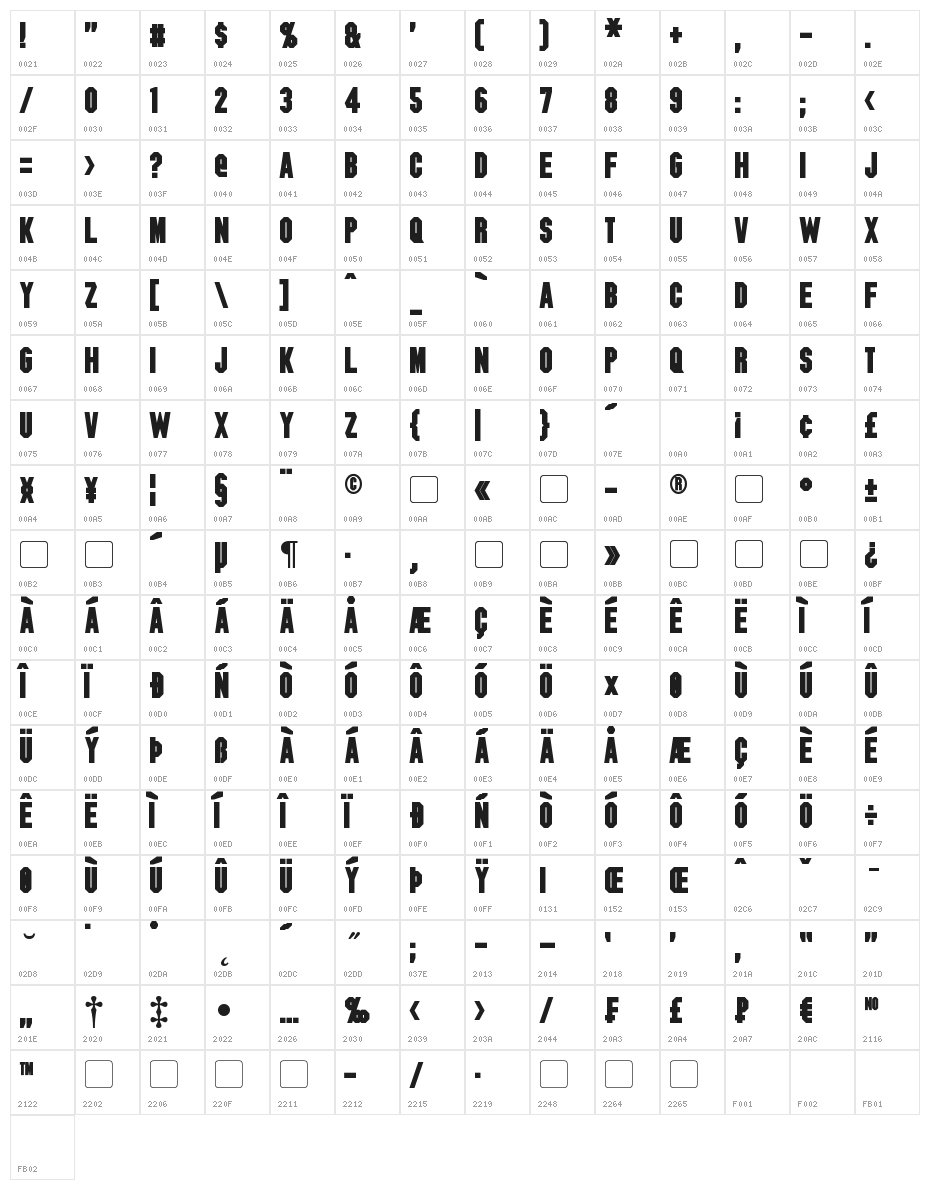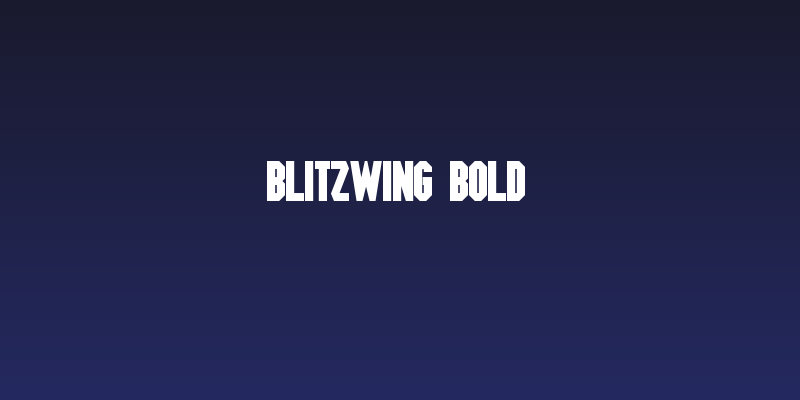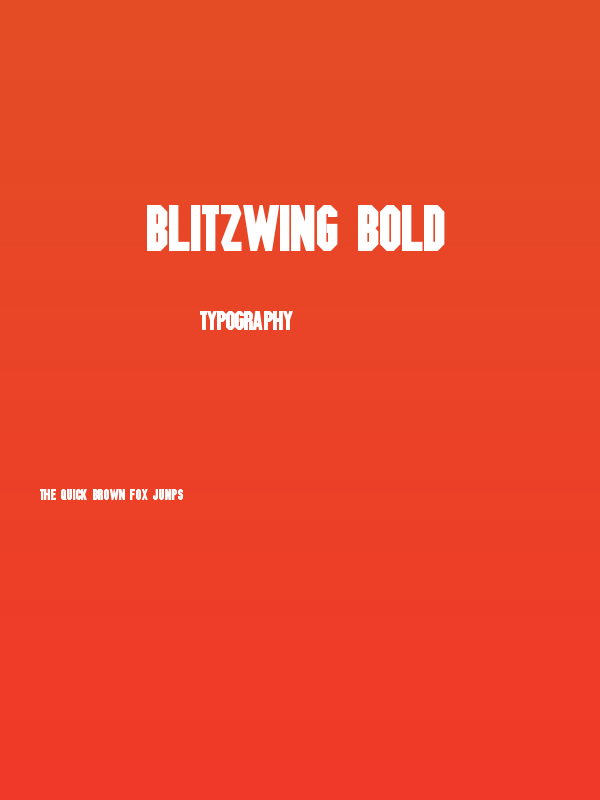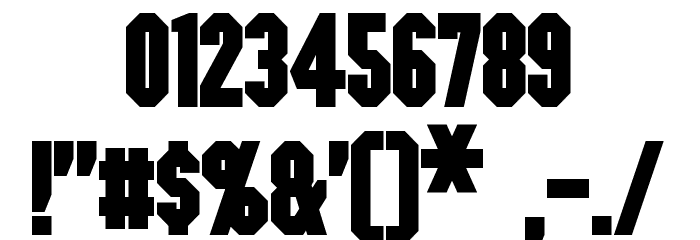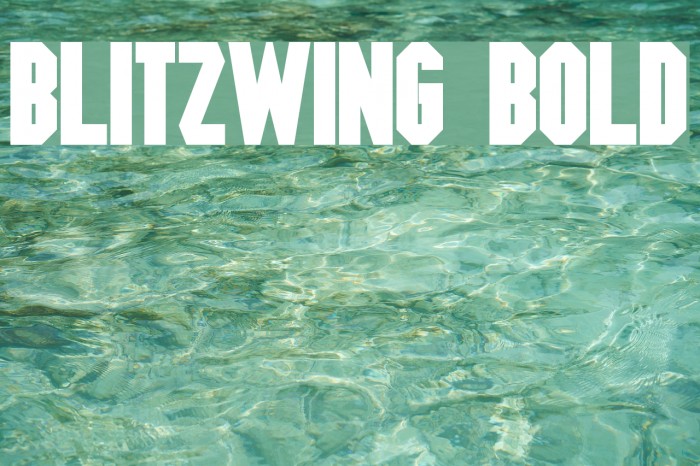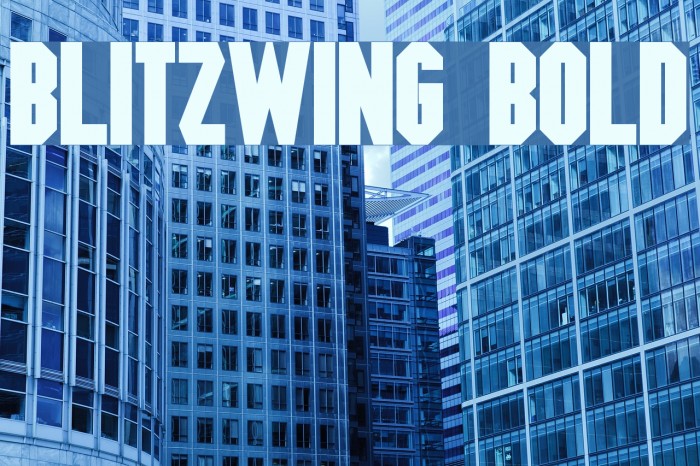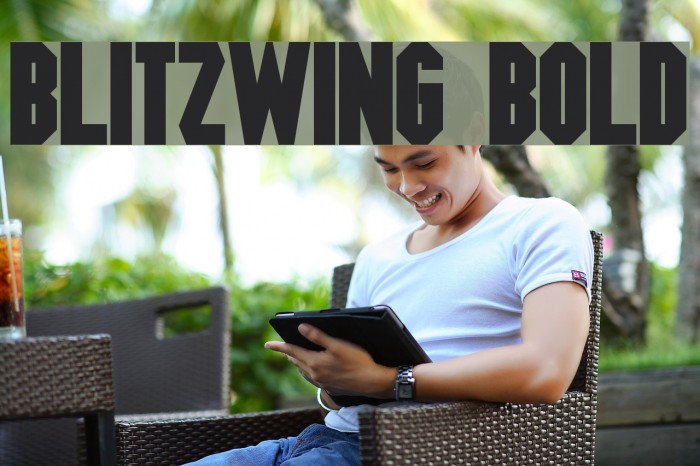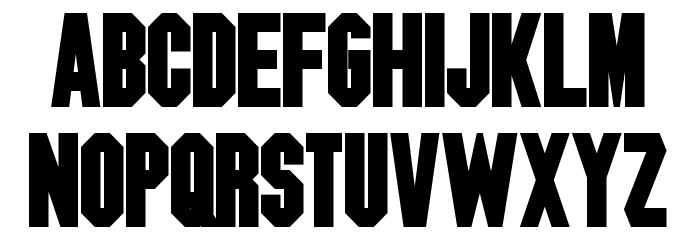
Blitzwing Bold Font
Blitzwing Bold Description
This font features a bold and impactful design, characterized by its thick, block-like letters that convey strength and assertiveness. The uppercase letters are uniform in height, with sharp angles and a geometric structure that enhances its modern appeal. The numbers and special characters maintain the same boldness, ensuring consistency across all glyphs. This font's design is ideal for making a strong visual statement, with its high contrast and solid appearance making it stand out in any context.